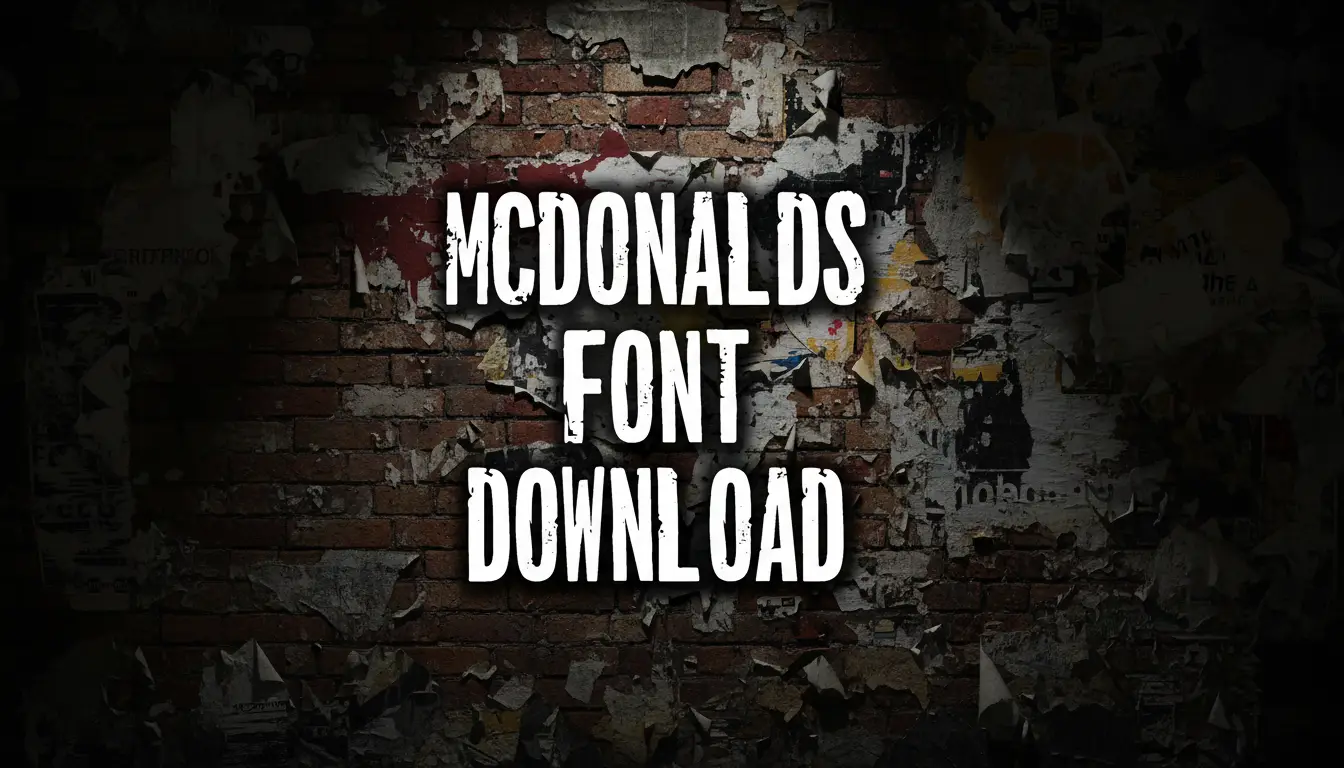
McDonalds Font
McDonalds Font Preview
McDonalds
McDonalds Character Map
McDonalds is a fancy font. It's a decorative display font with plenty of personality, made to grab attention. It's a free download, and you can try it with your own text in the preview above first.
What You Can Type With McDonalds
McDonalds has the full alphabet in upper and lowercase. There are no numbers, so you'll need a second font for dates, prices or phone numbers. Punctuation is limited, so look at the character map if you need a specific symbol. It doesn't include accented letters such as é or ñ, which makes it an English-only font.
Where McDonalds Works Best
Think of McDonalds for posters, logos and eye-catching headlines. Use it for one standout word or headline and let simpler fonts handle the rest.
Does McDonalds support accented letters?
No. McDonalds has no accented letters such as é, ñ or ü, so it's best for English text.